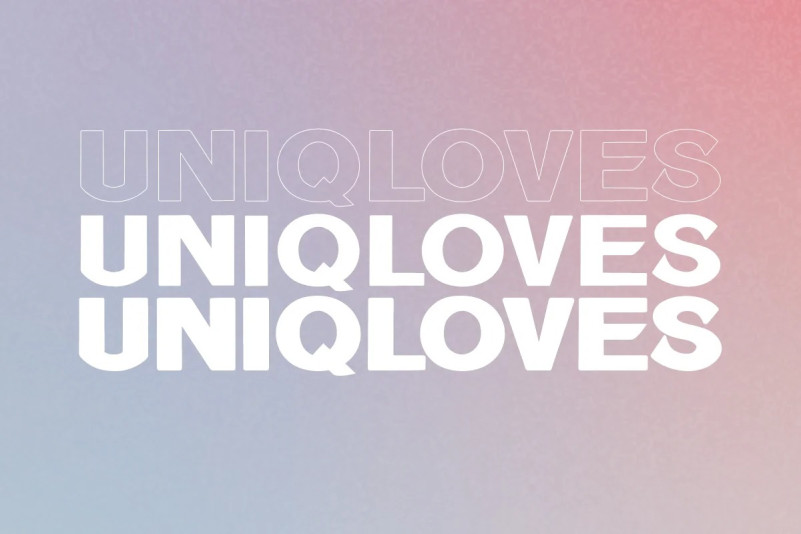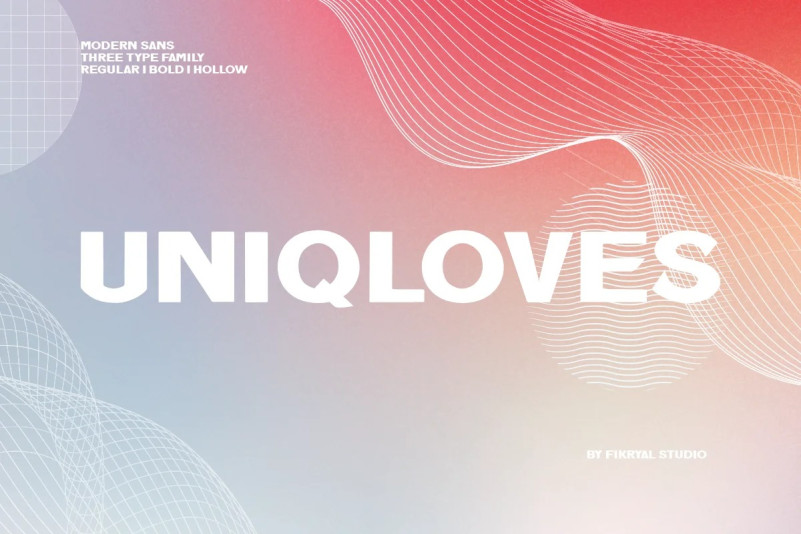
Uniqloves Font
Uniqloves Modern Sans Font, comes with three types of typefaces, Regular, Bold, and Hollow.
This font is very suitable to be applied in various aspects of design, and your branding.
It’s perfect for logos, branding, title, social media posts, advertisements, product packaging, product designs, label, photography, watermark, special event, magazine, web designs, etc.